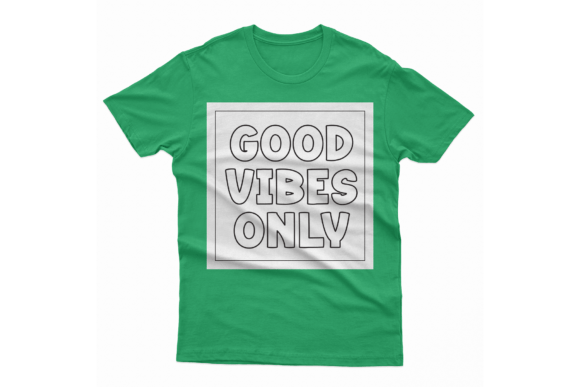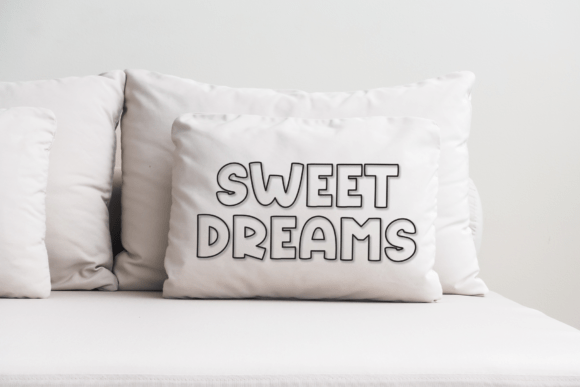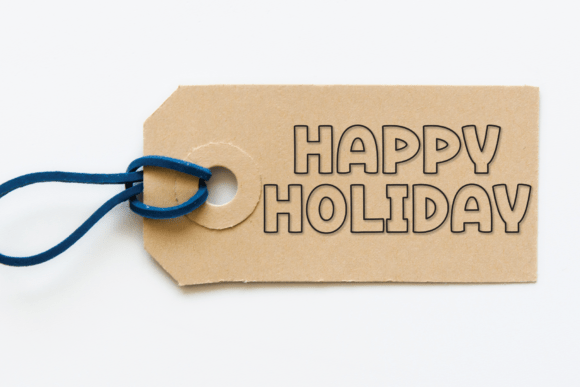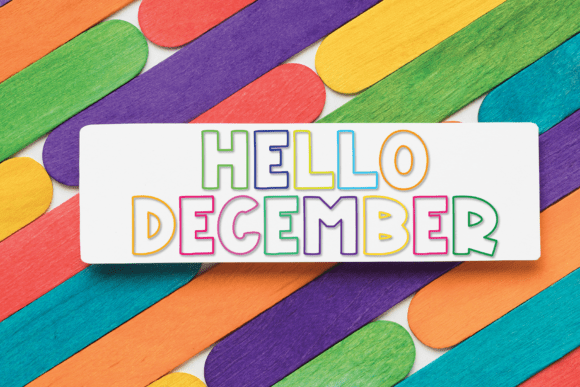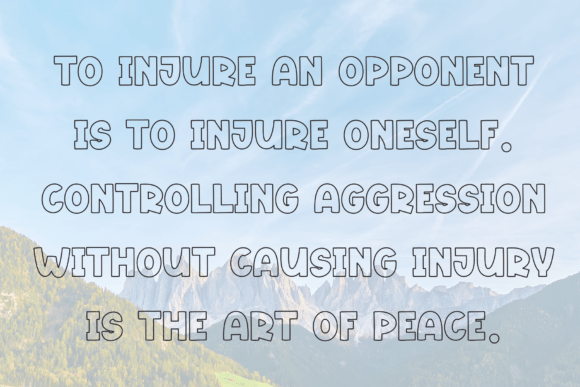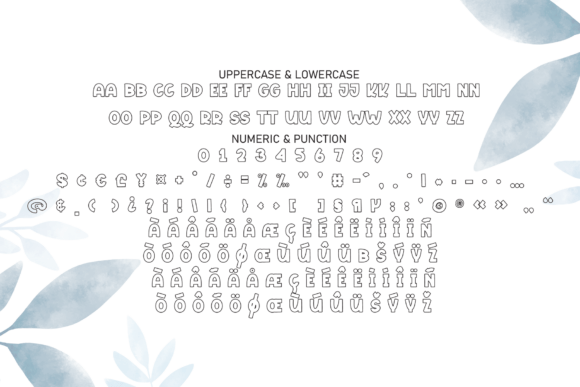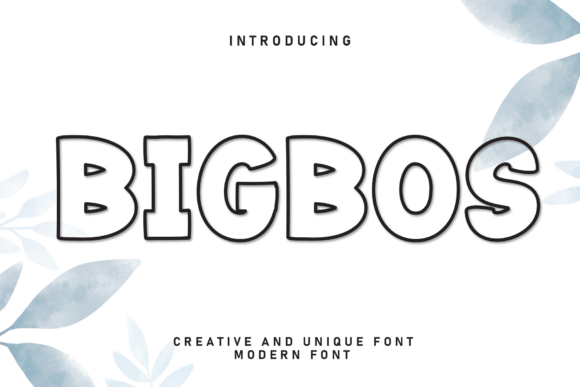
Unleash the Whimsy: Introducing Bigbos Font
Have you ever been brainstorming design ideas, only to be stuck in a sea of bland typography? It’s like trying to find the perfect recipe for a magical cake – you know it’s out there, but you can’t quite put your finger on it. That’s where Bigbos Font comes in – a delightful, handwritten display font that adds a pinch of sweetness and amiability to any design project.
This charming font is perfect for crafting enchanting wedding invitations, captivating cards, or any project that calls for a dash of fun. With Bigbos Font, you can infuse your creations with a touch of joyous whimsy that will leave a lasting impression on your audience. Whether you’re a seasoned designer or just starting out, Bigbos Font is an invaluable addition to your toolkit, offering endless possibilities for creative expression.
Bigbos Font Key Features
- Font Family: Bigbos Font is a custom-designed font family with multiple weights and styles.
- Character Set: The font includes a comprehensive character set, including Latin, Cyrillic, and Greek alphabets, as well as a range of punctuation marks and symbols.
- Unique Characteristics: Bigbos Font features a distinctive, modern design with bold lines and geometric shapes, making it suitable for use in various design contexts, from logos and branding to digital products and publications.
Bigbos Font Review
Bigbos Font is an interesting choice for designers looking for a bold and playful typeface. ✨ One of the things that stands out about this font is its versatility. It’s suitable for use in various contexts, from headings to body text, and even for creating logos or icons.
Here are some of the things that work well with Bigbos Font: ✨
- Unique style that adds a touch of personality to designs
- Suitable for use in digital and print materials
- Comes in a range of weights and styles
However, there are also some limitations to consider: ⚠️
- Might be too bold or overpowering in certain situations
- Not suitable for use in formal or professional settings
- Some characters may be difficult to read or recognize, especially in smaller sizes
Overall, Bigbos Font is a fun and creative choice for designers who want to add some personality to their work. While it may not be suitable for every project, it’s a great option for those looking to create bold and eye-catching designs.
Bigbos Font is perfect for creating eye-catching headlines and titles in Canva. Try using it for blog post titles, social media graphics, or marketing materials.
Bigbos Font is ideal for creating custom logos, branding materials, and typography-based designs in Adobe Photoshop and Illustrator.
Bigbos Font is perfect for creating presentations, reports, and documents that require a unique and stylish font.
Bigbos Font is ideal for:
- Creating bold and eye-catching headlines.
- Designing custom logos and branding materials.
- Adding a unique touch to presentations and documents.
- Creating social media graphics and marketing materials.